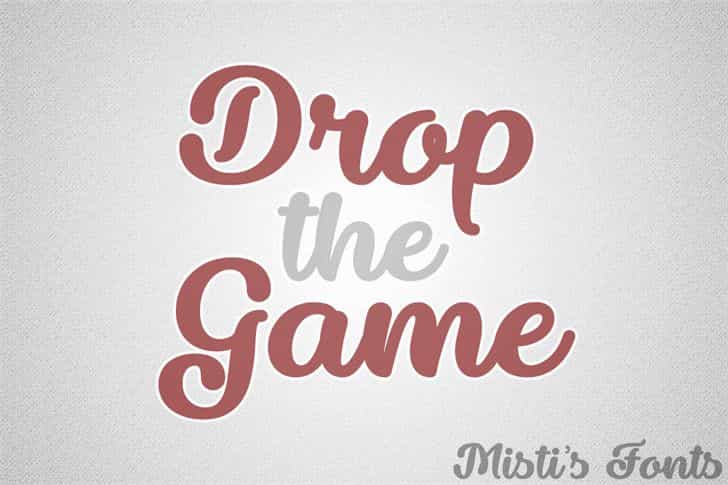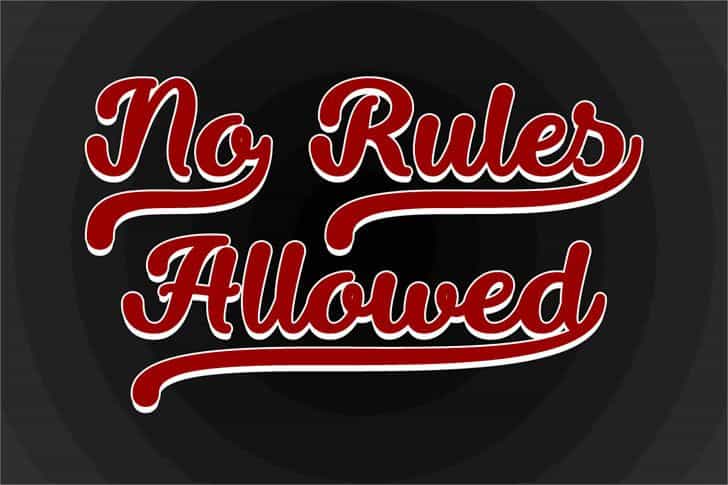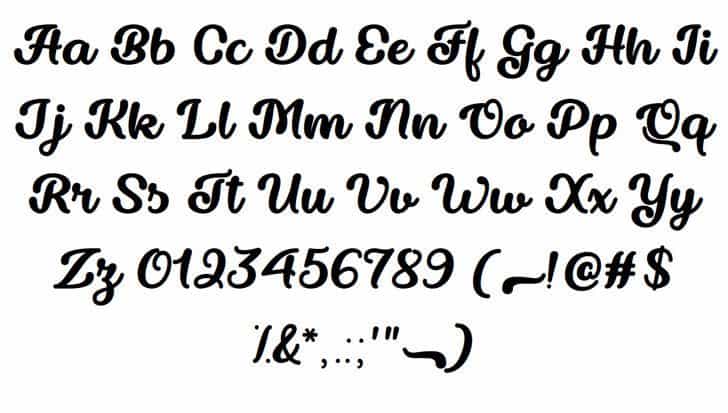
Drop the Game is a striking font that will make your logos, posters, product labels, and many other designs stand out. Provides swashes to give a filler touch to your designs.